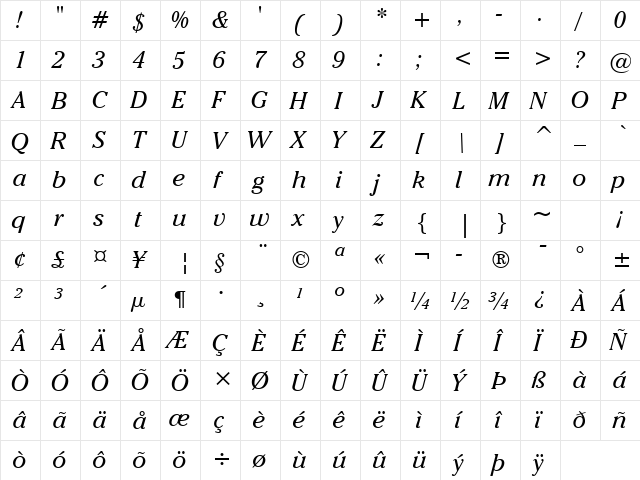
ChelthmITC Bk BT Book Italic
Design Context for ChelthmITC Bk BT Typeface
ChelthmITC Bk BT offers clean, dependable letterforms without strong stylistic allegiance, making it a practical choice for designers who need flexibility. The slanted form adds forward momentum and visual energy.
Pro Tip: Try ChelthmITC Bk BT for annotation and caption copy alongside an upright companion — the contrast in angle creates a dynamic but ordered typographic system.